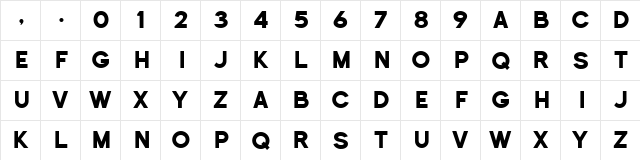
Historical Sans
| Style | Sans |
| Foundry | Runsell Studio |
| Designer | Edi Gunawan |
Design Context for Historical Typeface
Historical is a composed and adaptable typeface that performs quietly and consistently across a wide range of design contexts.